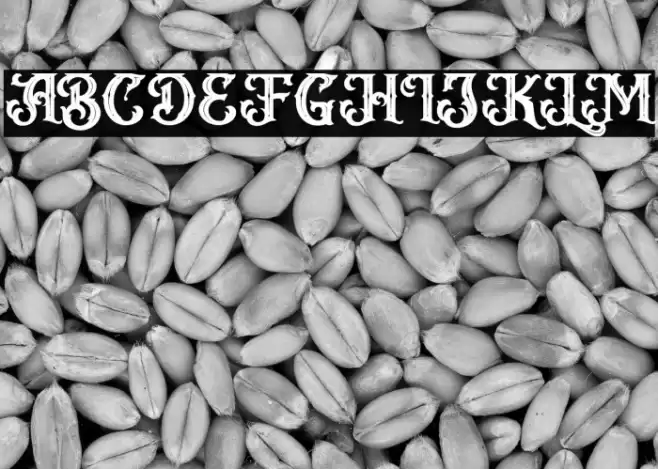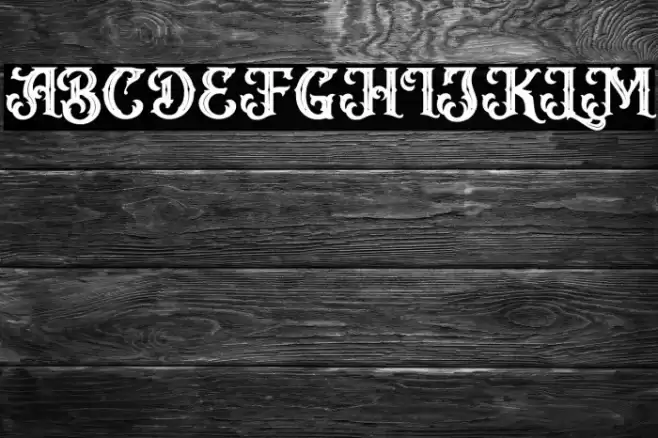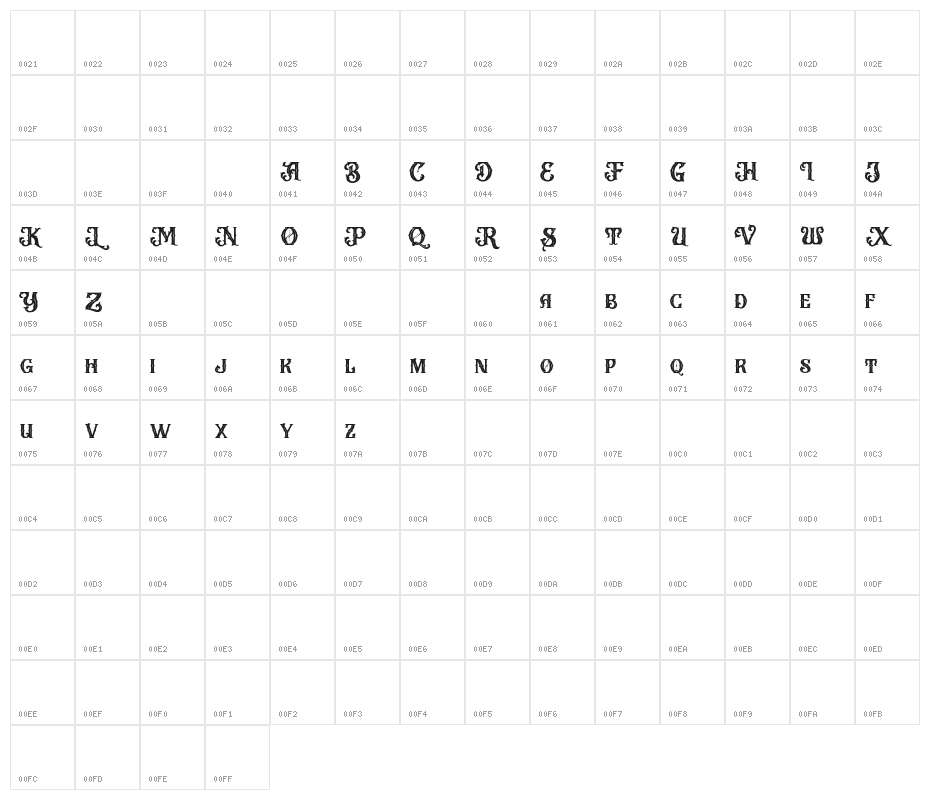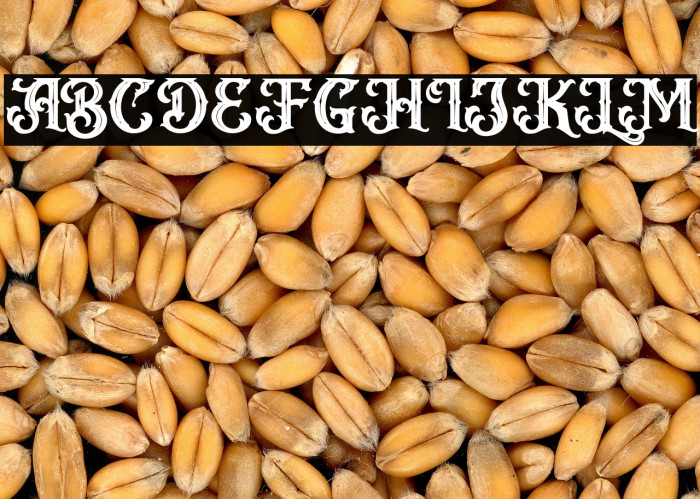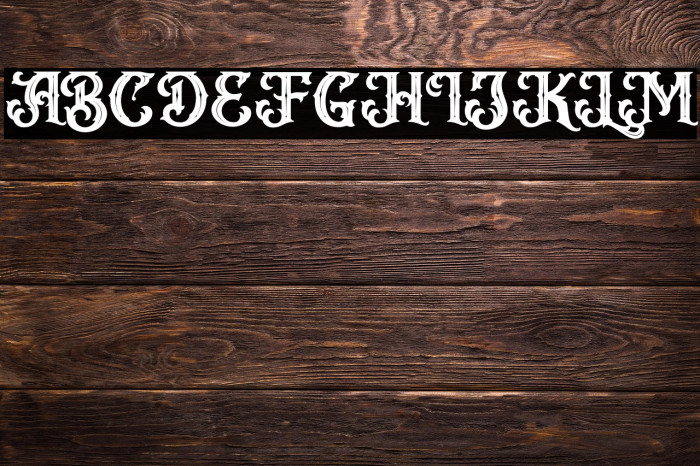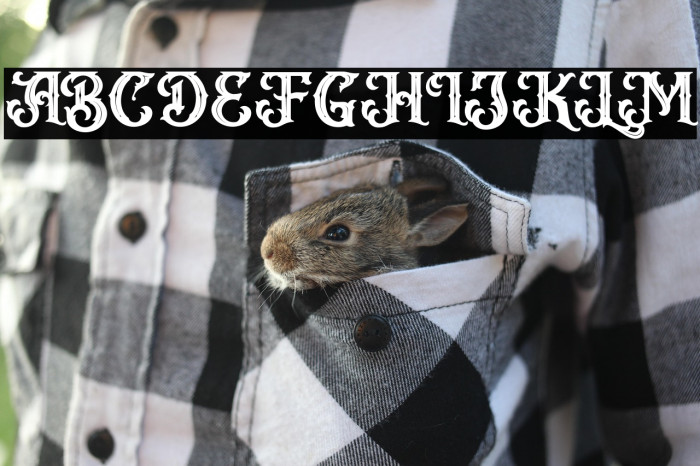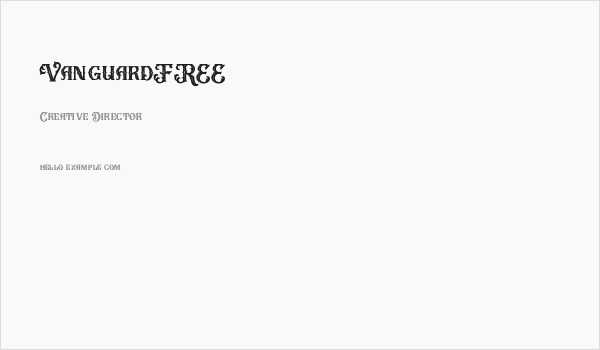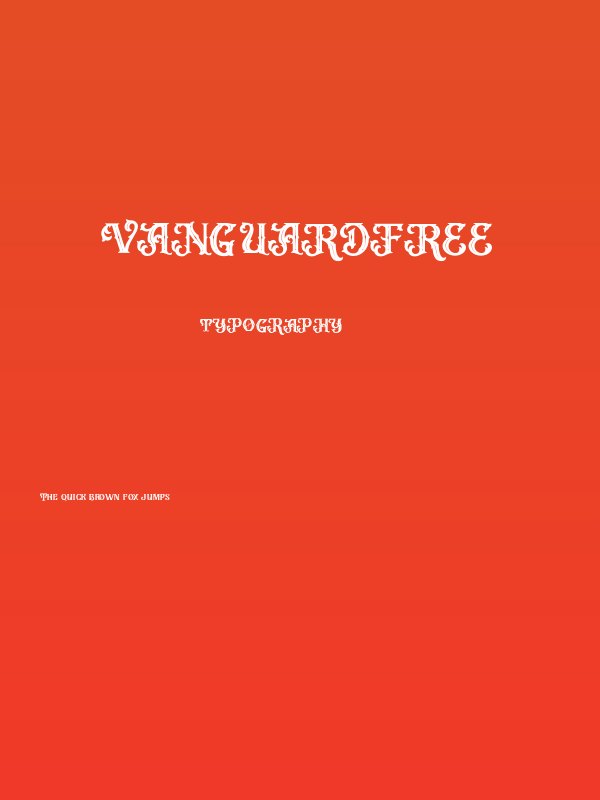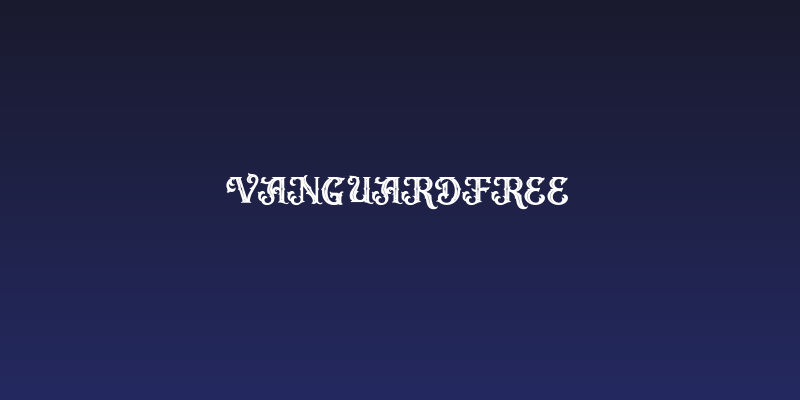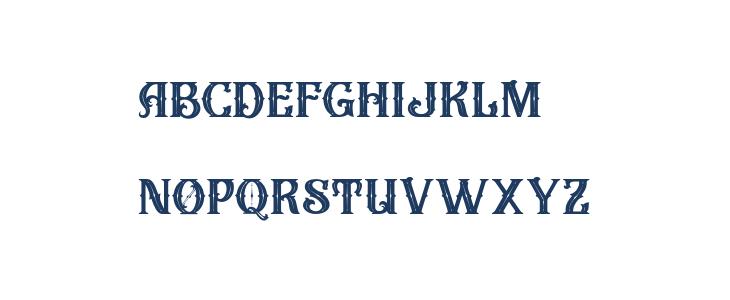
VanguardFREE Font
VanguardFREE Description
This font features an intricate and decorative design, characterized by ornate flourishes and embellishments that give it a distinctly vintage and gothic appearance. The uppercase letters are particularly elaborate, with swirling elements that add a sense of elegance and complexity. The strokes are bold and consistent, providing a strong visual impact. The font is well-suited for projects that require a dramatic and eye-catching style, such as posters, logos, or branding materials that aim to convey a sense of tradition or historical depth.
An ornate and decorative font with a vintage gothic style from Uncategorized fonts.
- Font: VanguardFREE
- Proposed Projects: Ideal for vintage-themed posters, gothic-style branding, and decorative logos.
- Overall Style: Vintage, Gothic, Decorative
- Use Case: Logos, Posters, Decorative Text